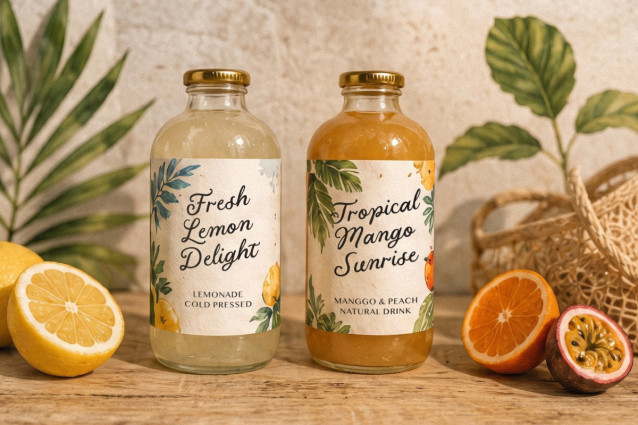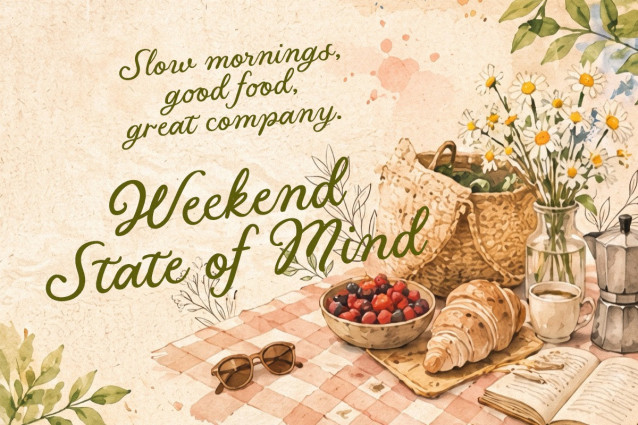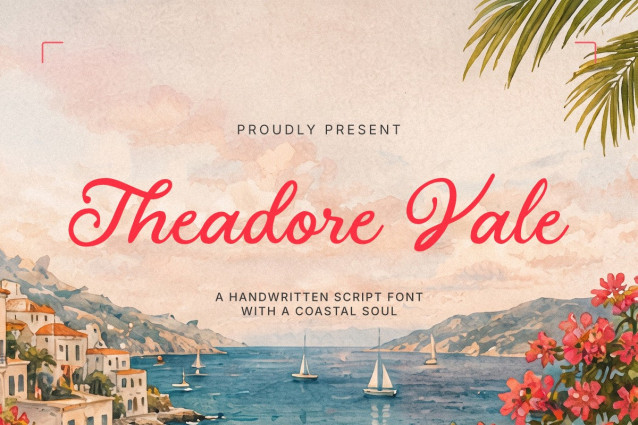
Theadore Vale Font
Theadore Vale is a coastal handwritten script font inspired by relaxed seaside living and handwritten travel journals. Its smooth monoline construction, gently slanted rhythm, and rounded terminals create a natural flow that feels personal without becoming overly casual. The generous counters and balanced proportions keep headlines readable, while the sweeping capitals and softly extended entry and exit strokes add an elegant sense of movement.
Distinctive letterforms give the typeface a postcard-like charm reminiscent of coastal cafés, beachside signage, and handwritten holiday notes. Where available, alternates and connected script forms help create more natural word shapes, improving visual continuity and giving brands greater flexibility when crafting custom-looking logotypes.